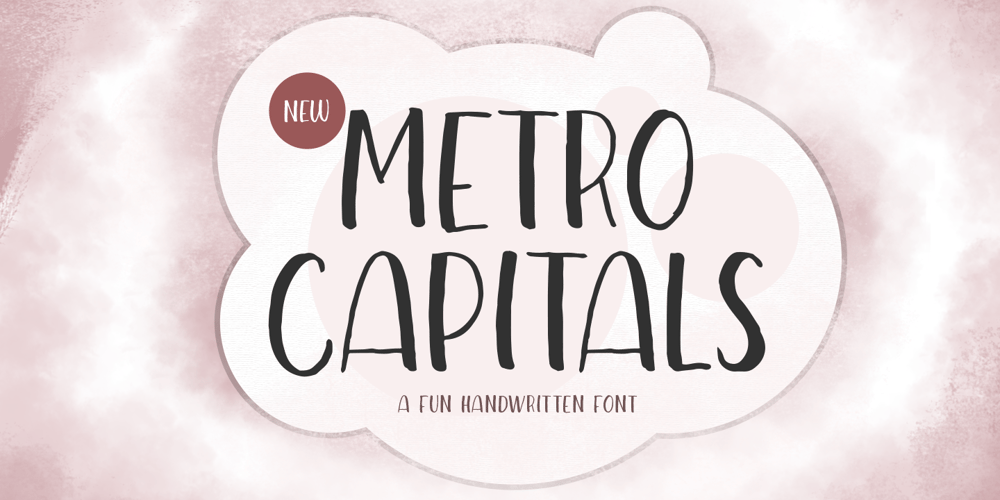
Metro Capitals Font Family was designed by Hendry Juanda and published by Letterhend. Metro Capitals contains 1 styles and family package options. Introducing, Metro Capitals, a fun handwritten typeface. This font is perfectly made for branding, packaging, headline, logos, magazines, books, greeting / wedding cards, packaging, fashion, make up, stationery, novels, labels or any type of advertising purpose.Features : uppercase & lowercase numbers and punctuation multilingual alternates PUA encoded We highly recommend using a program that supports OpenType features and Glyphs panels like many of Adobe apps and Corel Draw, so you can see and access all Glyph variations.